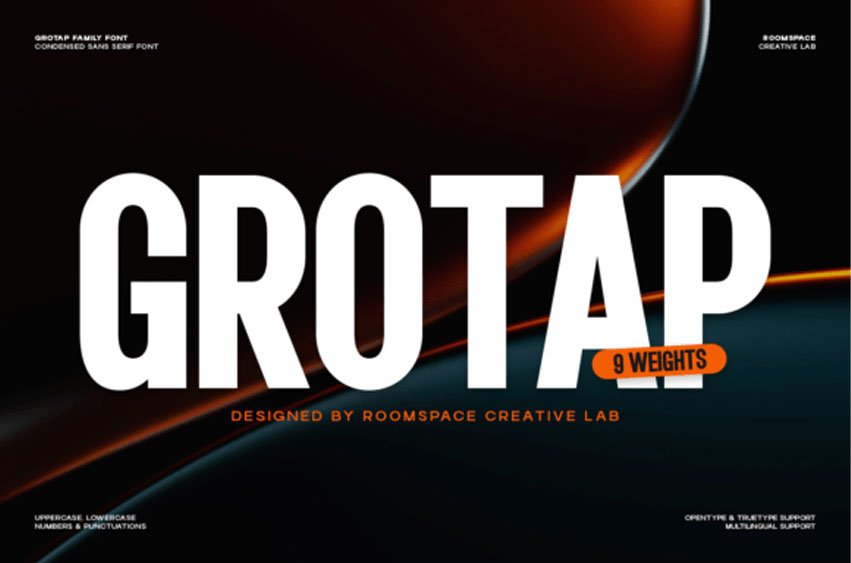
Grotap Font is a bold and clean condensed sans-serif font family for branding, posters, and editorial design.
Grotap Family Font is an extremely bold, ultra-condensed sans-serif typeface that dominates the visual space with powerful, geometric precision. This expansive condensed sans-serif font family comes in nine weights, offering exceptional versatility for massive headlines, striking editorial design, and impactful corporate branding. Its tight letter spacing and formidable structure make the Grotap Family font a cornerstone for industrial, technological, or futuristic design aesthetics.
Its tall proportions and clean structure make it perfect for creating professional and eye-catching designs. With multilingual support and high-quality spacing, Grotap works seamlessly across print and digital projects.
The clean, unwavering lines and stark efficiency of this sans-serif typeface ensure maximum legibility and authority, even at enormous display sizes. The Grotap font is the ultimate tool for designers seeking to make a decisive statement, providing all the necessary weights and multilingual support to deliver compelling, modern typography.